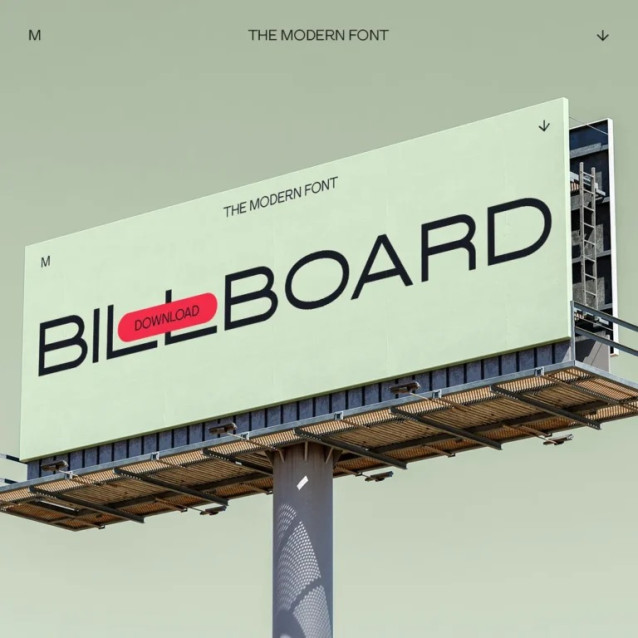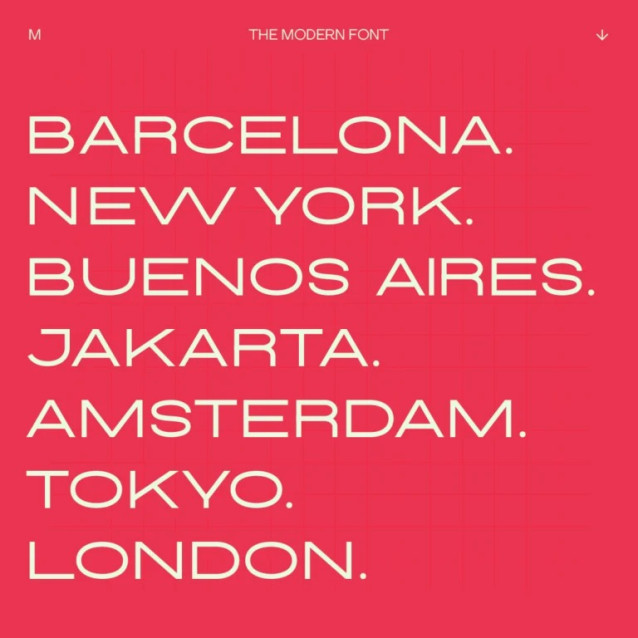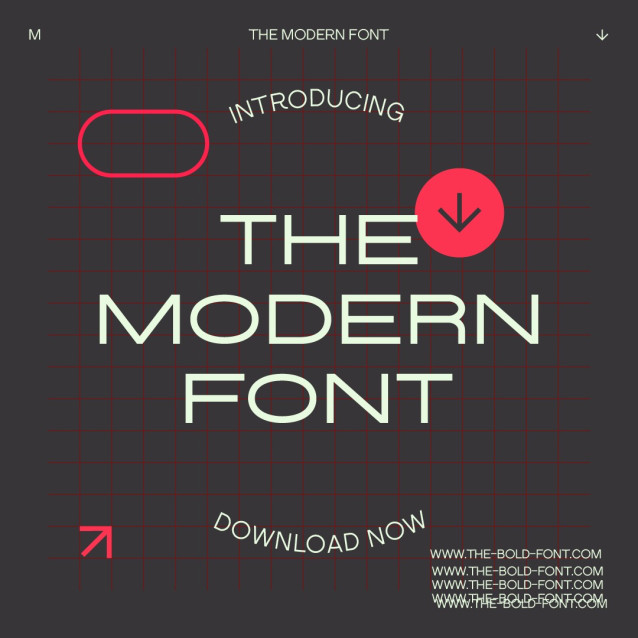
The Modern Font
The Modern Font a sleek, contemporary font with a cheeky twist.  Perfectly fit for branding, logo, wedding things, greeting cards, fashion, lookbook, marketing promotion, anytime you want to look fancy elegant but still casual.